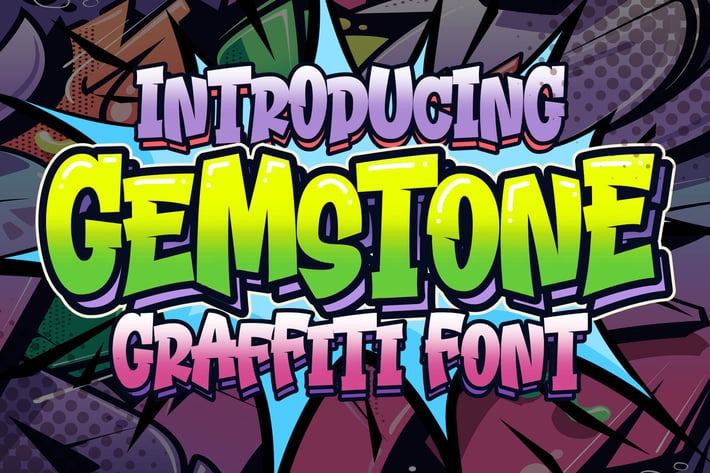
Gemstone Graffiti Font
Introducing of our new product the name is Gemstone Graffiti Font, Gemstone inspired by graffiti style with a fun theme very good for graffity poster, Hip Hop music, kids poster, flyer, childrenbook, cartoon, comic etc